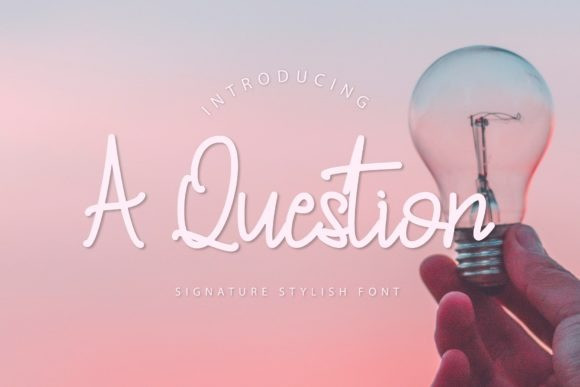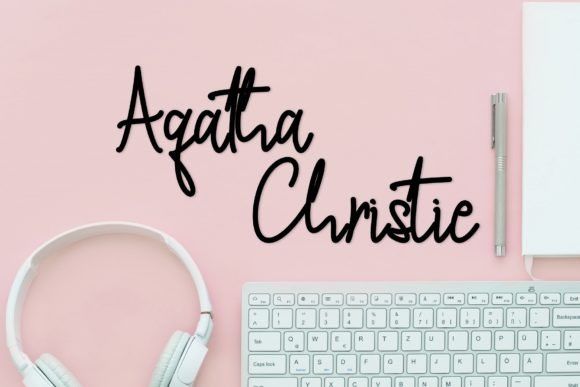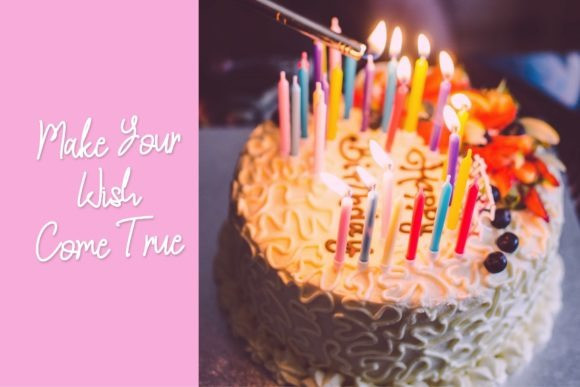
Wonderline Handwritten Font
Wonderline is a lovely and timeless handwritten font. It is the best choice for creating eye catching logos, branding and quotes. Every letter has a unique and beautiful touch, which will make your design come alive!